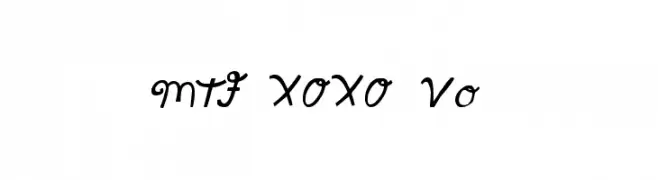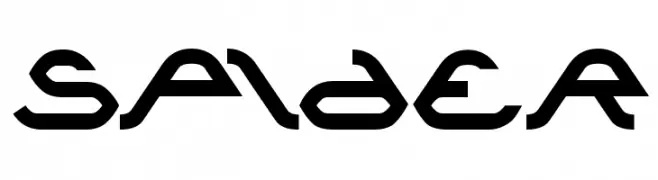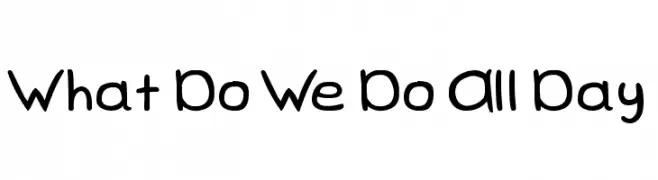
A playful, informal handwritten font with a casual and approachable style.
A modern, geometric font with rounded edges and consistent line thickness.
A futuristic, geometric font with sharp angles and a modern aesthetic.
A playful, handwritten font with rounded edges and a casual style.
A playful, whimsical font with curly, flowing letterforms.
A playful, hand-drawn font with a unique outline effect and casual style.
Whimsical nature-themed dingbats with floral and weather motifs.
A tall, narrow font with elongated, thin characters for a sleek, modern look.
A playful, casual handwritten font with irregular, whimsical strokes.